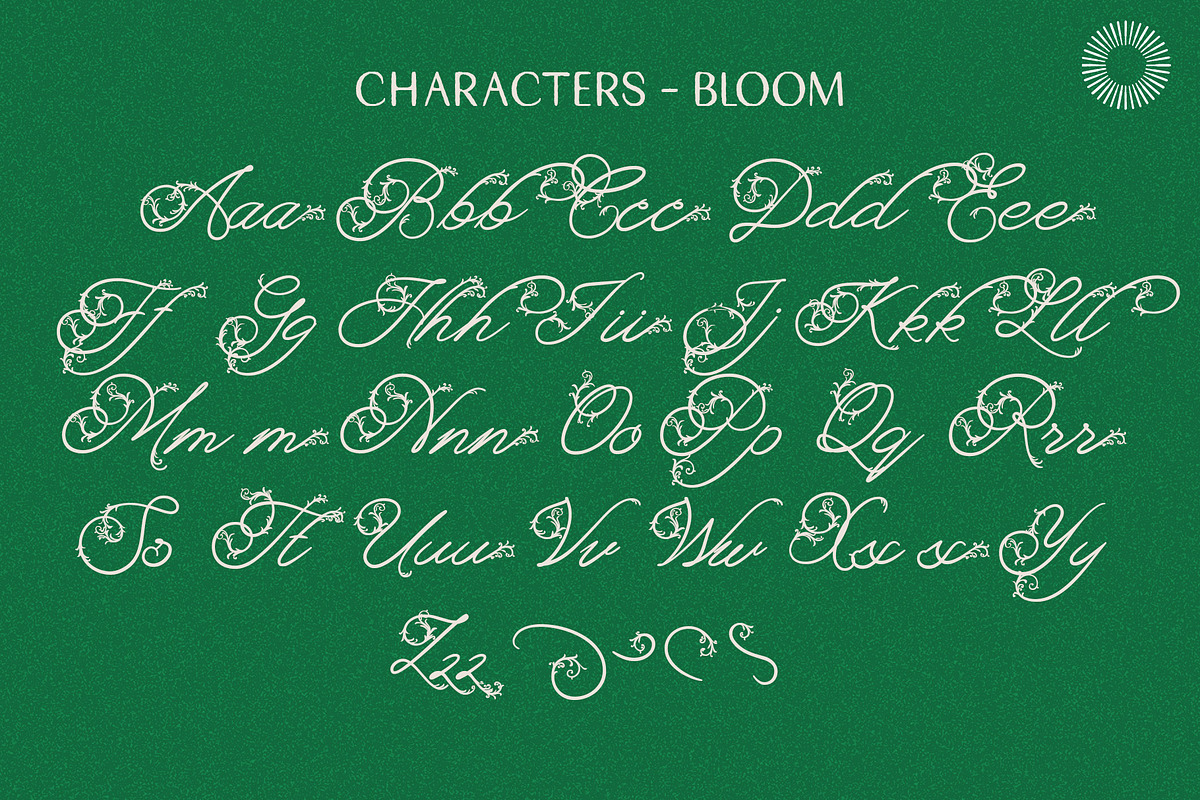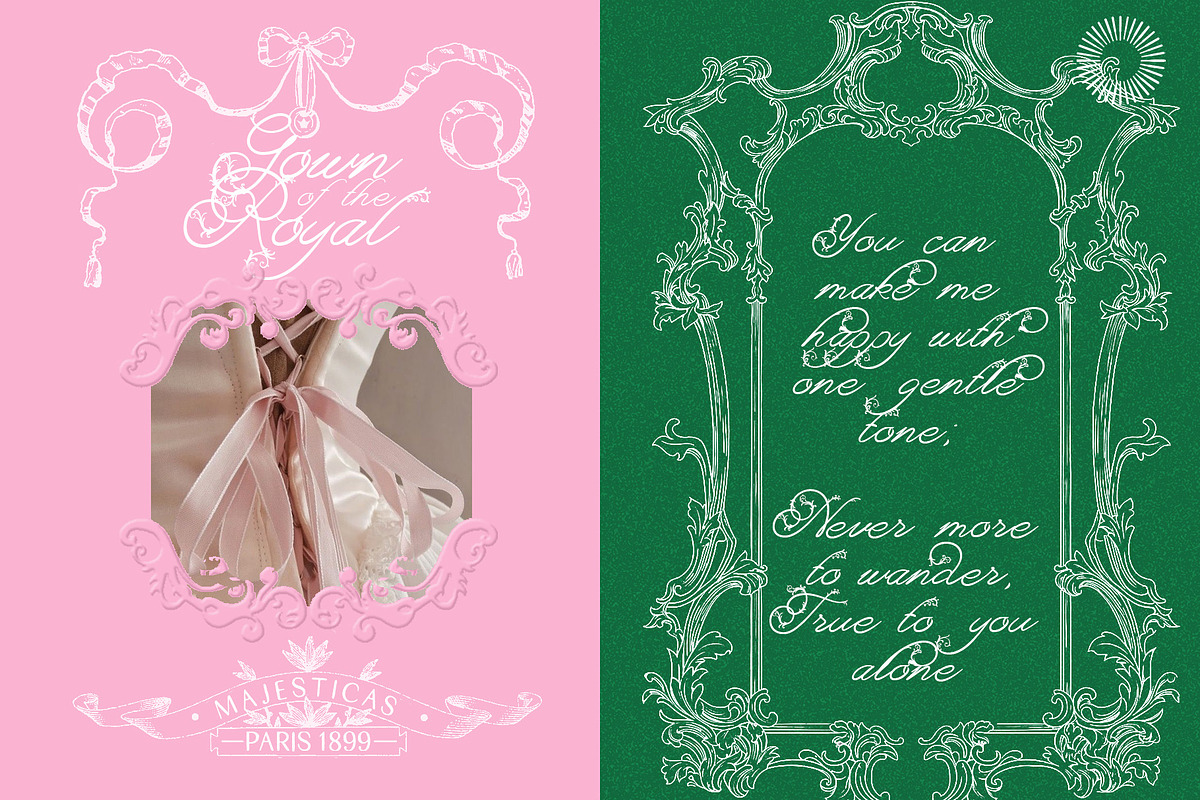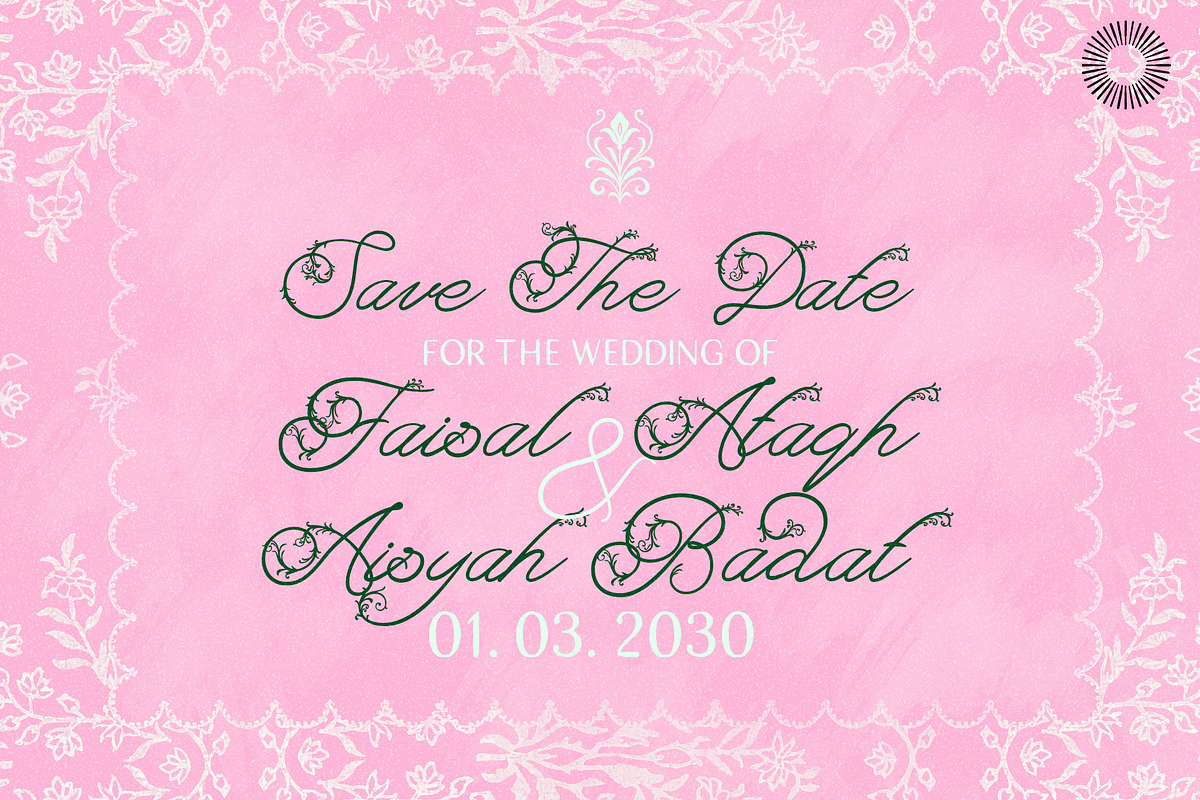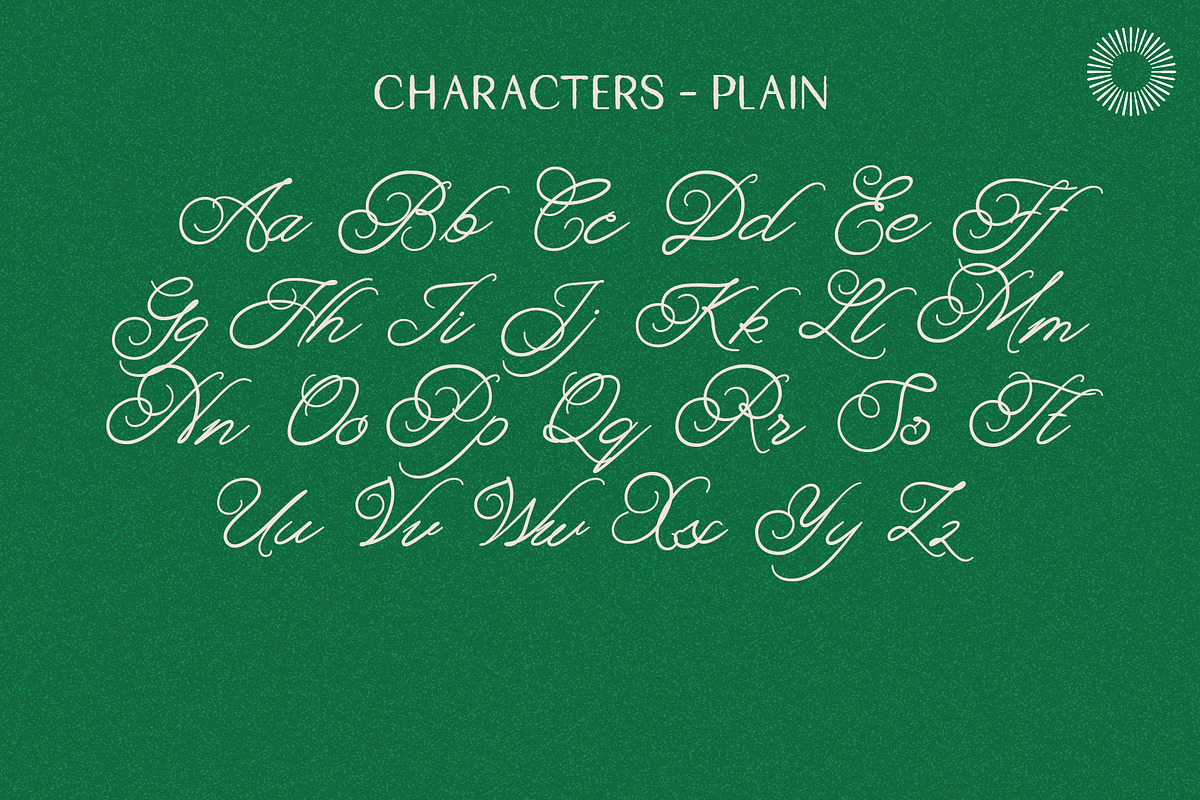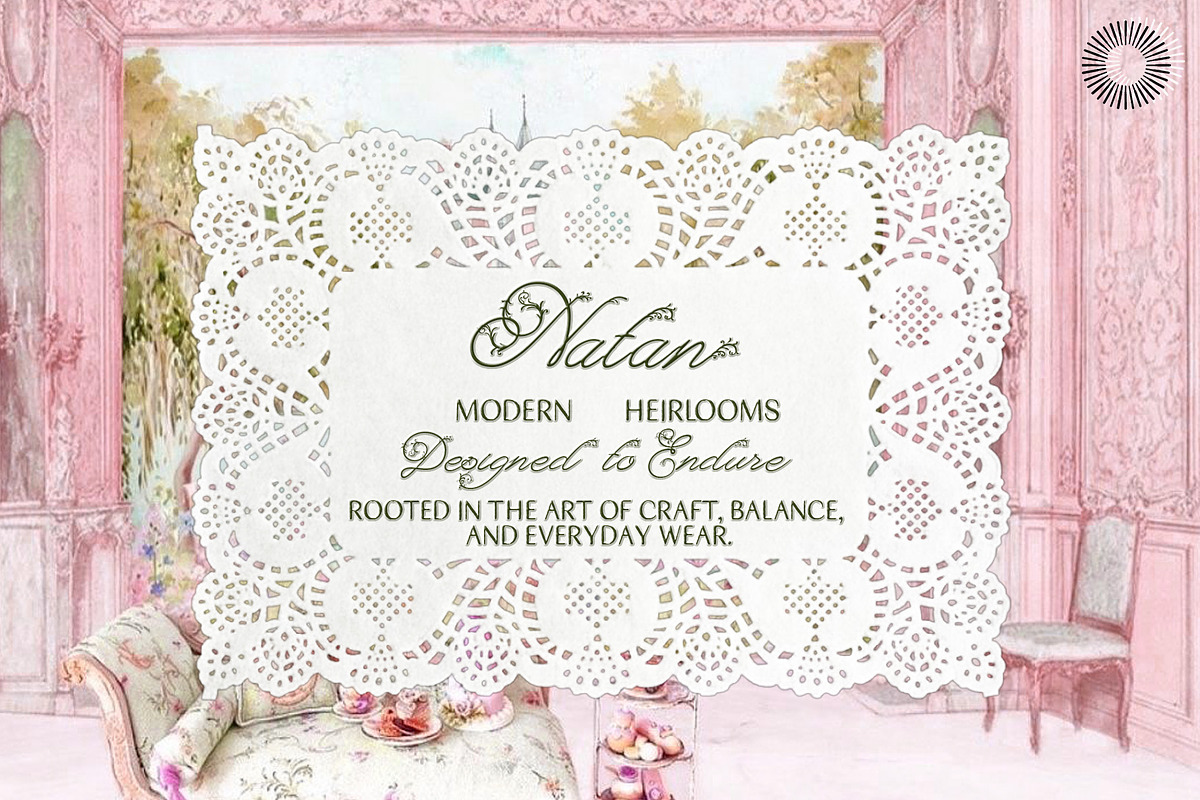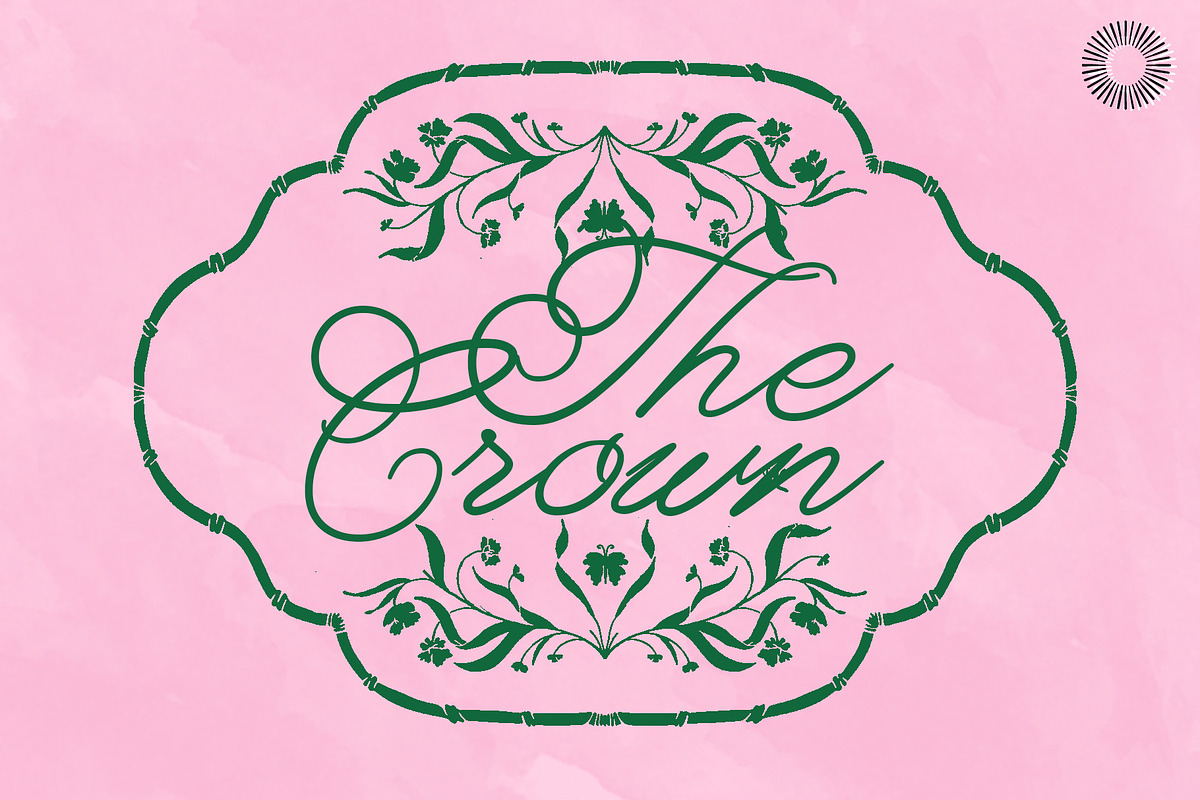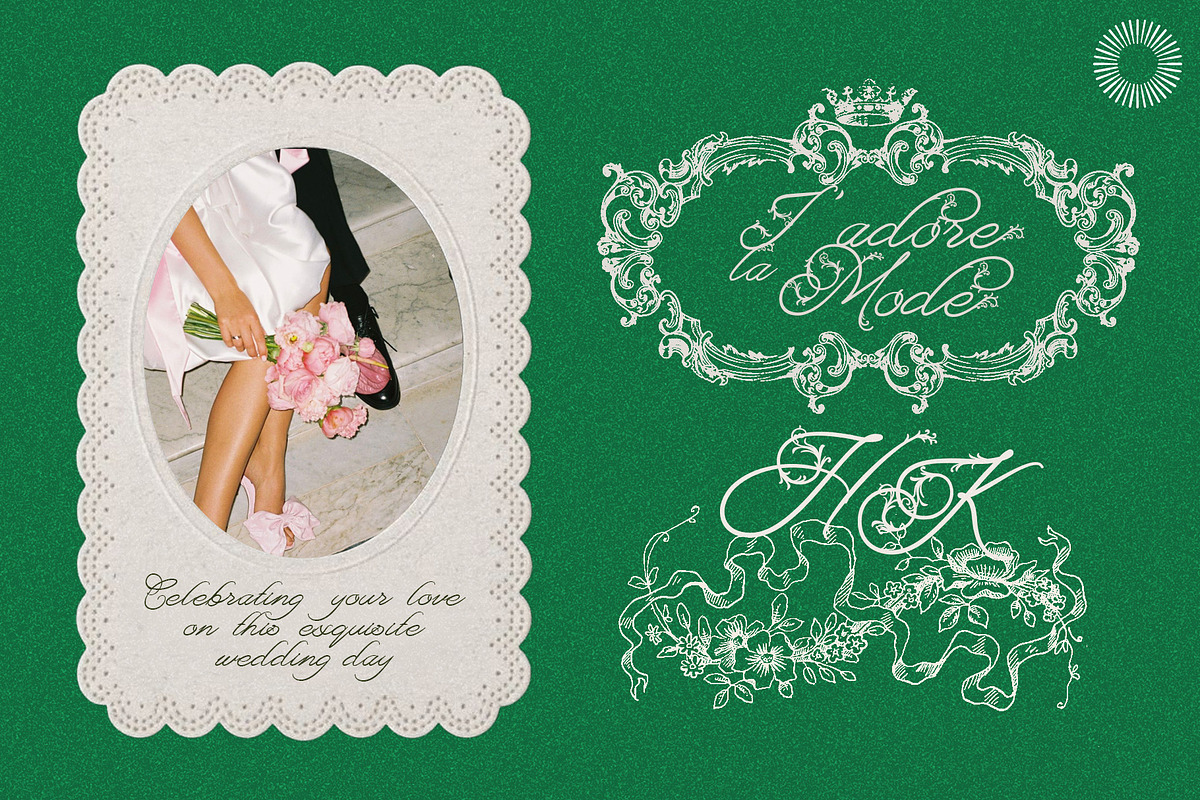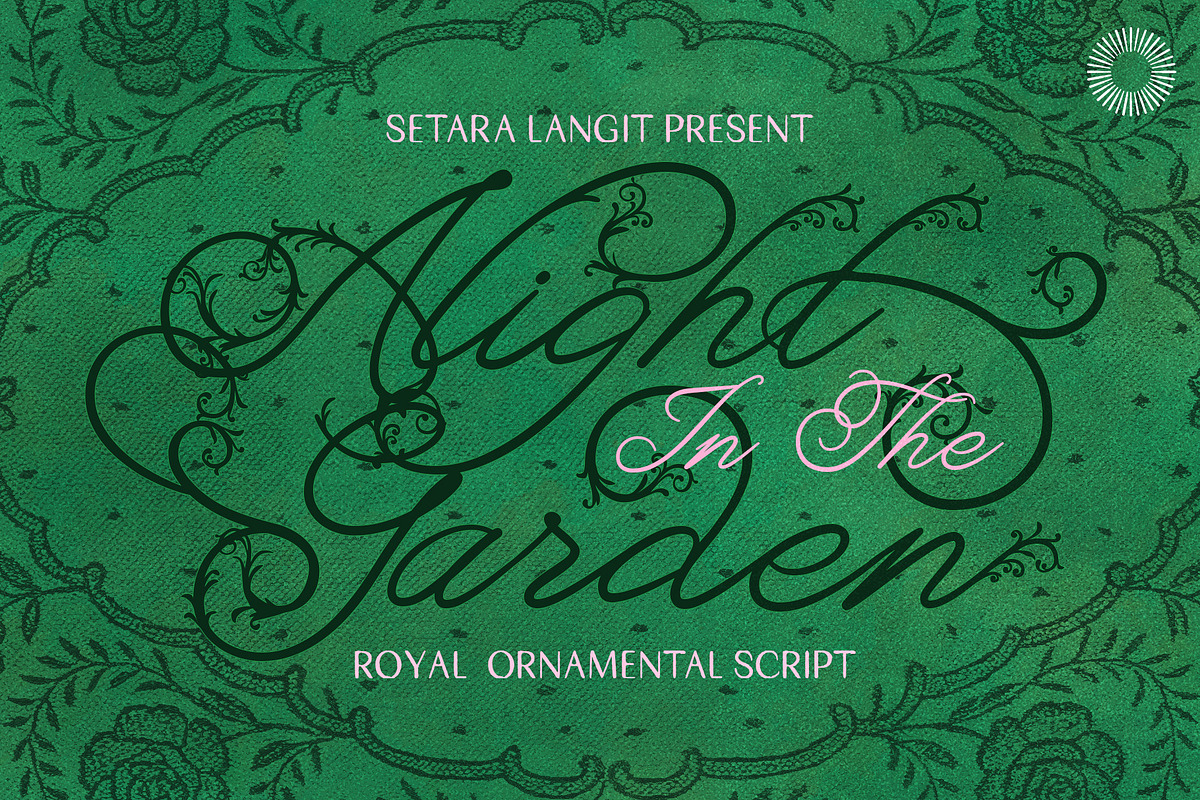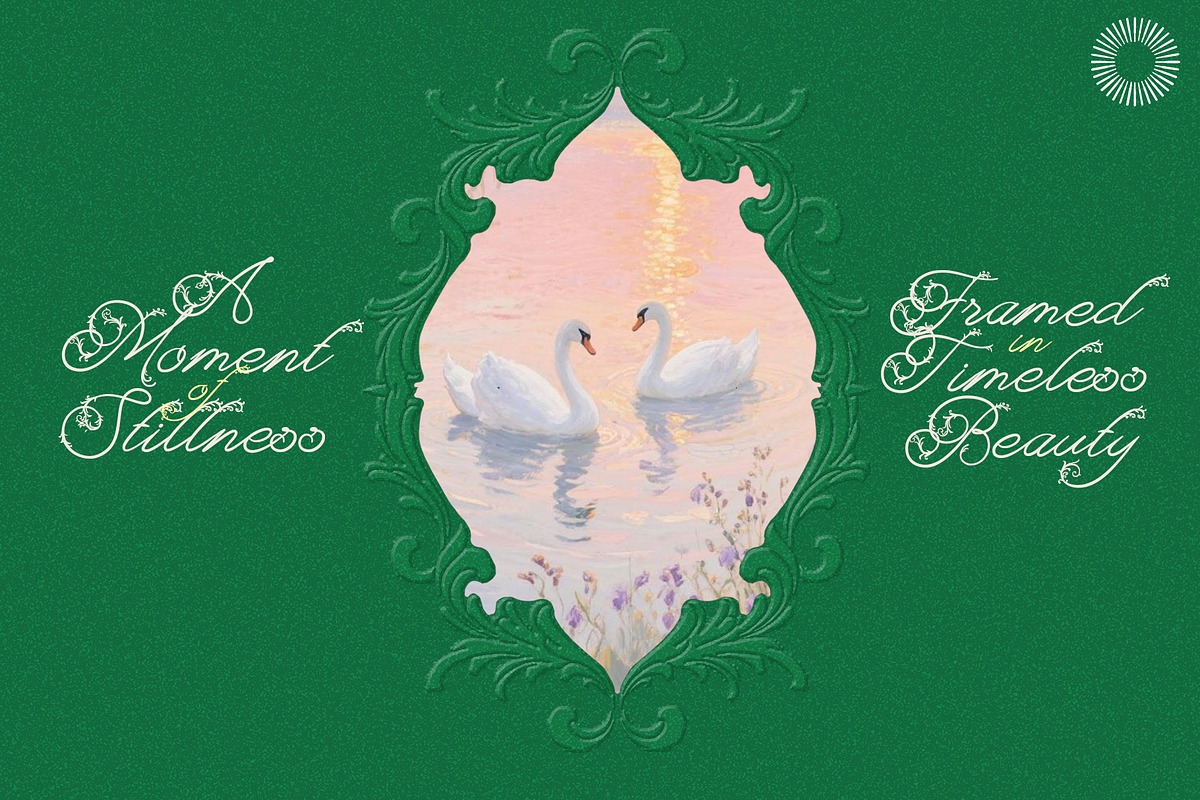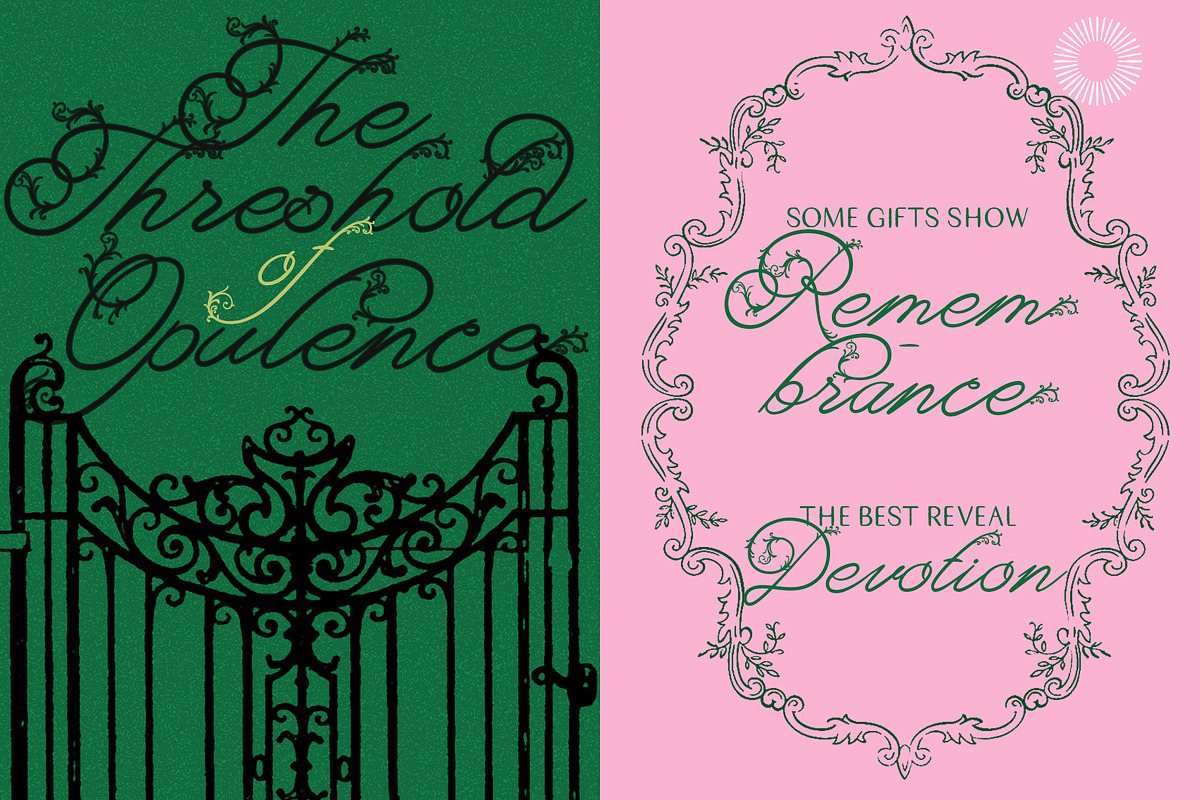
Alight Garden - Ornamental Script
Alight Garden Classic Royal Ornamental Script Alight Garden is a classic ornamental script inspired by heritage calligraphy, vintage typography, and the quiet romance of old-world design. The font is built with flowing strokes, elegant contrasts, and decorative flourishes that feel intentional rather than excessive. Its character leans toward refinement and warmthsuited for designs that want to feel timeless, expressive, and carefully crafted.
Unlike many ornamental scripts that sacrifice legibility, Alight Garden is designed with balance in mind. The letterforms remain readable at various sizes while still offering dramatic swashes and graceful connections for display use. This makes it flexible enough for both focal typography and supporting headlines.
Every curve and terminal is drawn to echo classic penmanship, giving the font a hand-crafted feel without appearing rough or inconsistent. The result is a script that feels luxurious, romantic, and enduring rather than trendy.
- Classic ornamental script style
- Elegant swashes and decorative alternates
- Smooth, flowing letter connections
- Carefully balanced contrast for readability
- Works well for both short phrases and longer titles
- Designed for display and branding use
- Full set of uppercase and lowercase letters
- Numerals and basic punctuation
- Stylistic alternates and swash characters
- Multilingual support (basic Latin)
- Branding & logo design
- Wedding invitations & stationery
- Editorial headlines & magazine titles
- Luxury packaging & product labels
- Interior quotes & wall art
- Social media graphics & promotional materials
Why Alight Garden is not designed to follow fast trends. It is created for designers who value atmosphere, detail, and typographic presence. The font brings a sense of quiet elegance—like soft light resting across ornamental forms—making each word feel deliberate and expressive. If you’re looking for a script that feels classic, romantic, and thoughtfully composed, Alight Garden offers a refined typographic voice that stands the test of time.